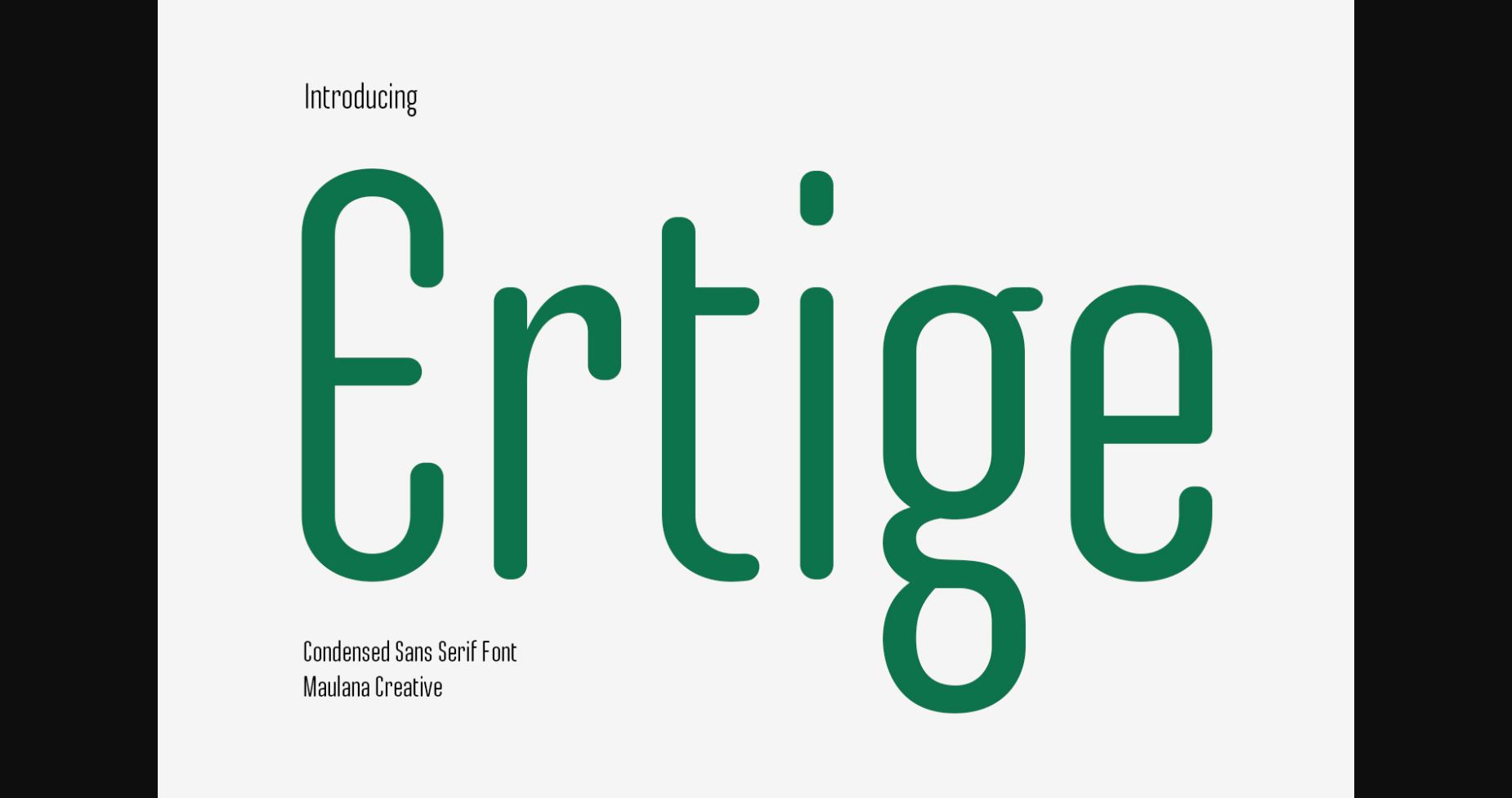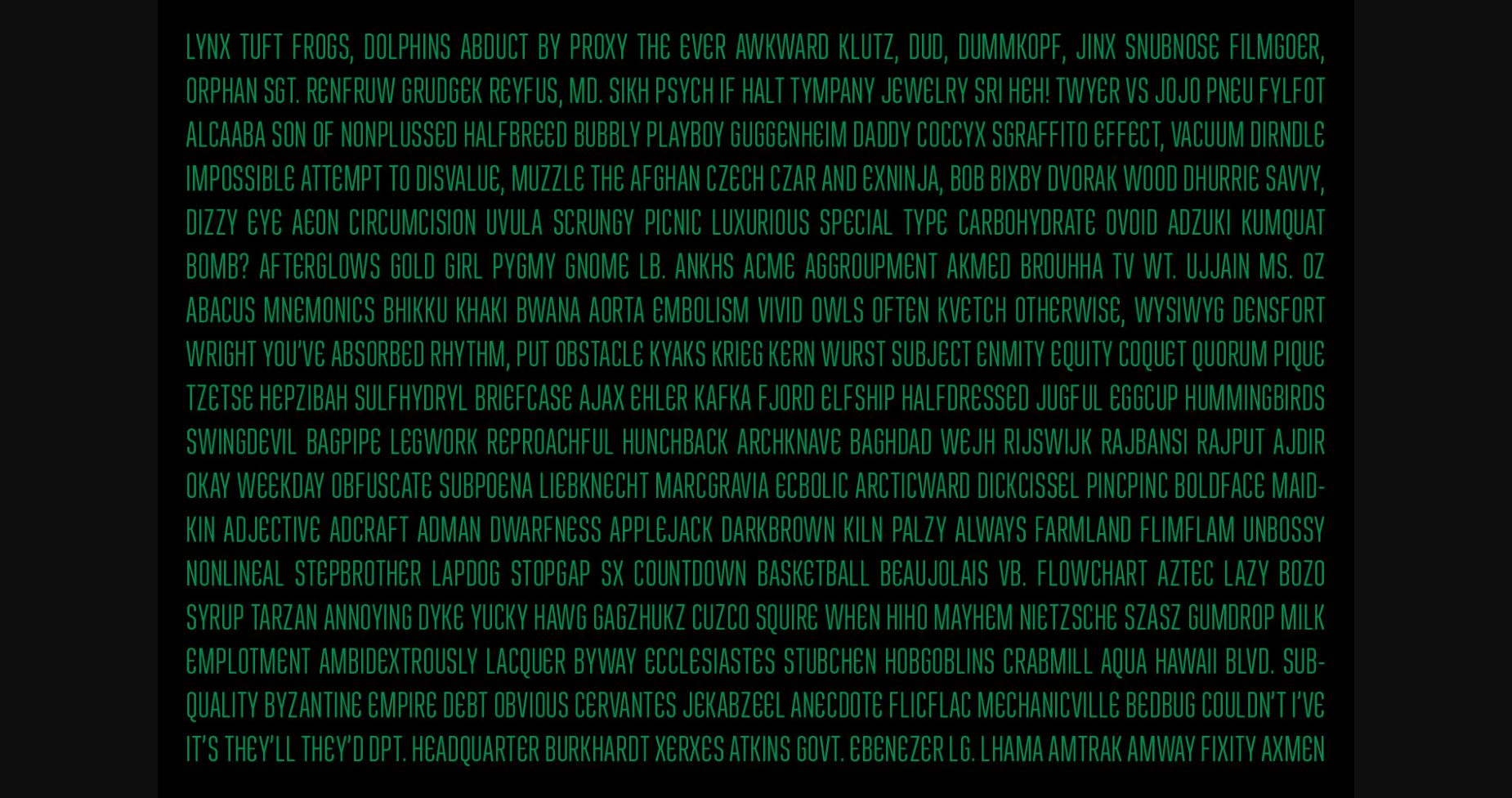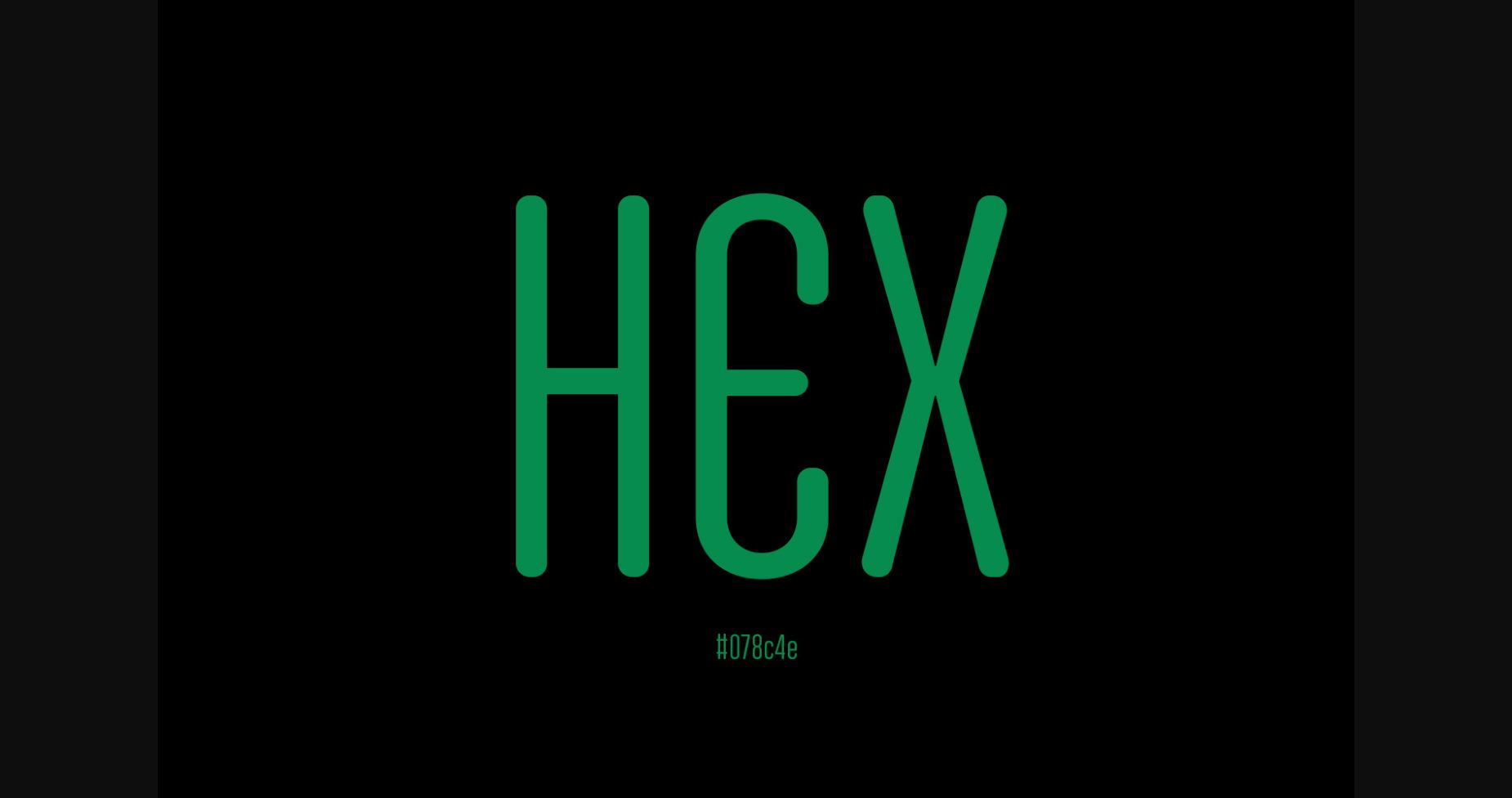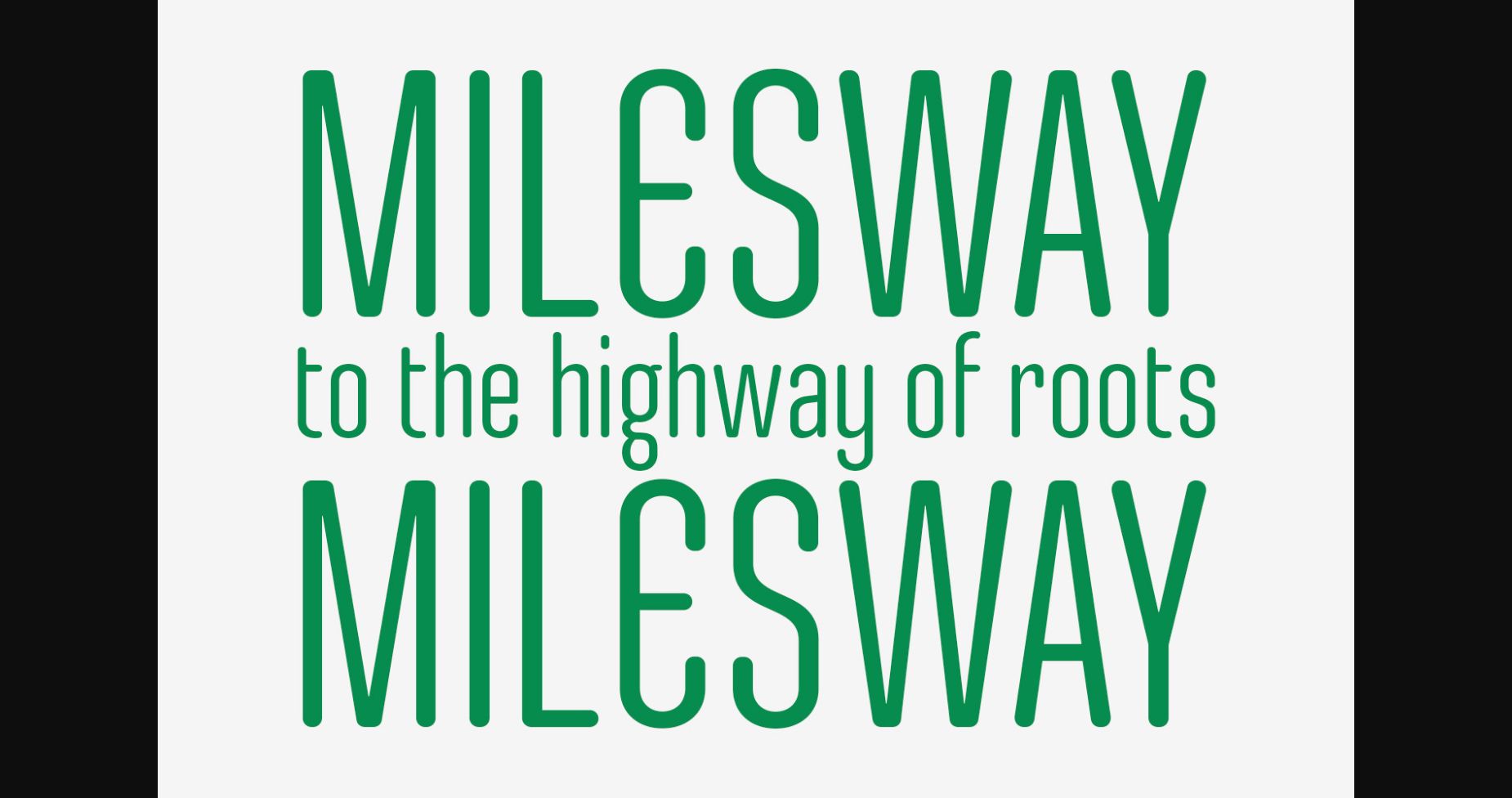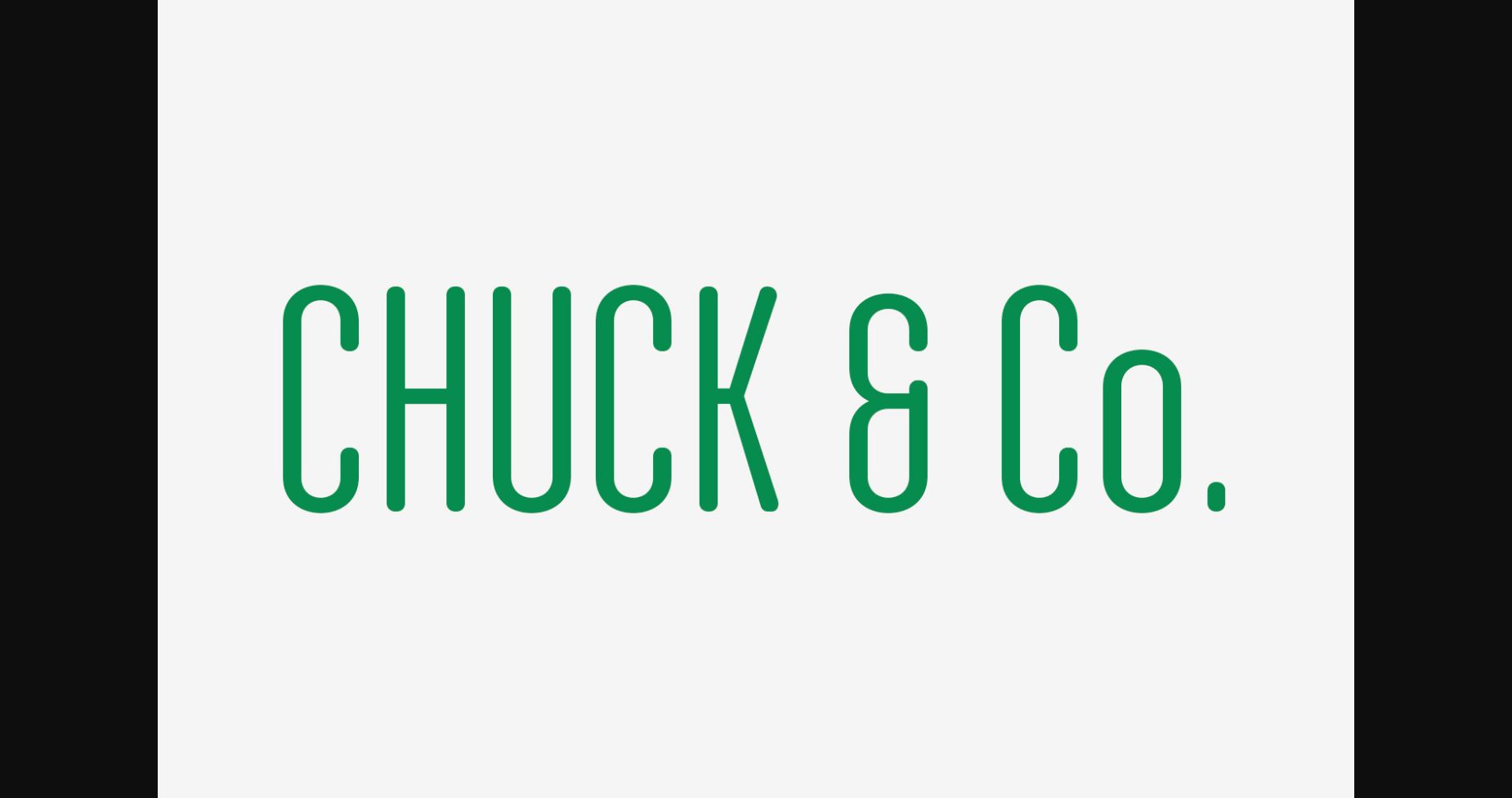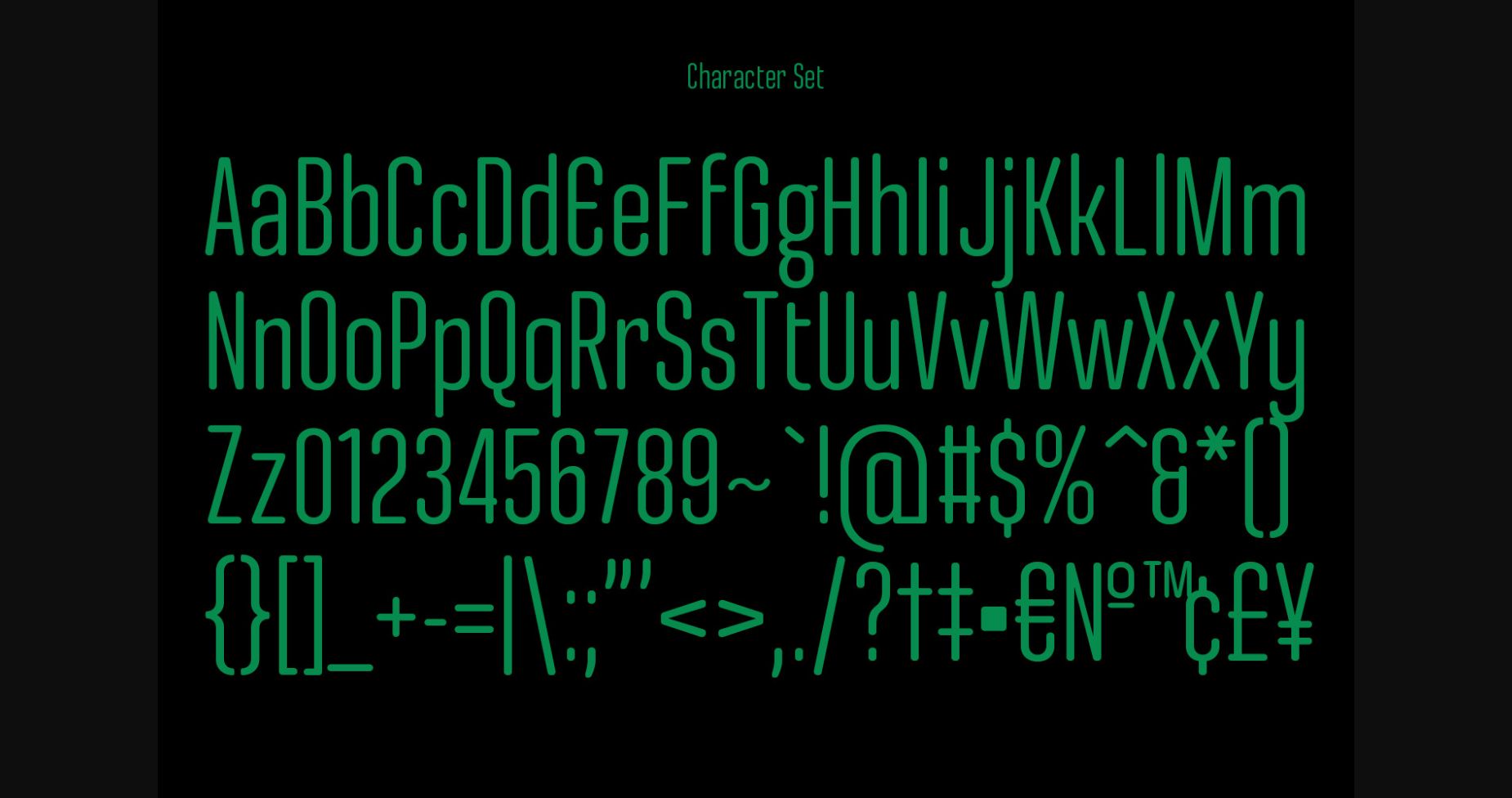
About Ertige Font
Ertige is a condensed and modern sans-serif font designed for a sleek and sophisticated look. With its clean lines and compact spacing, Ertige is perfect for branding, editorial design, and any project that requires a modern touch. Use Ertige to make a bold statement with your typography.